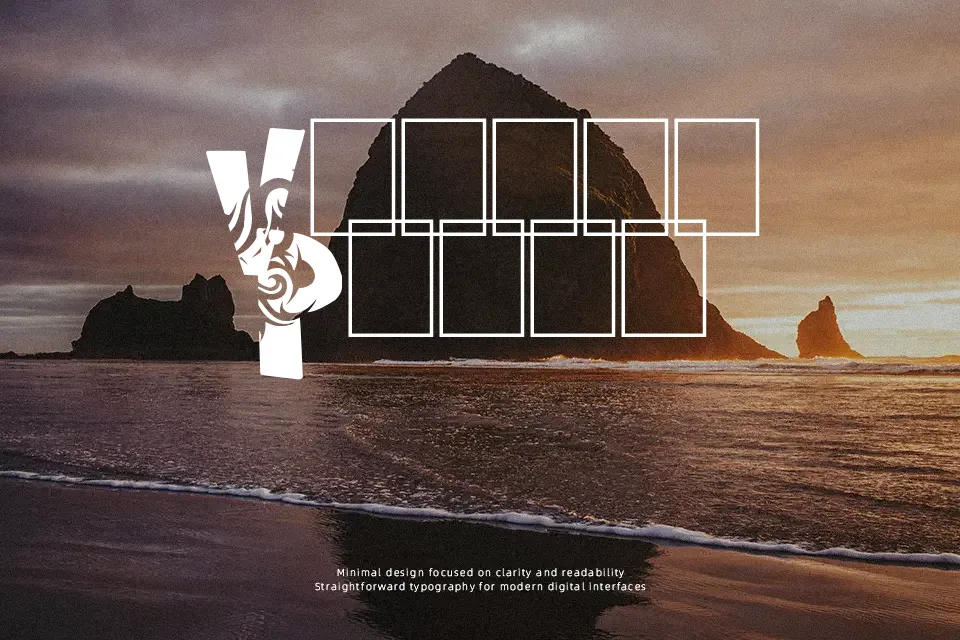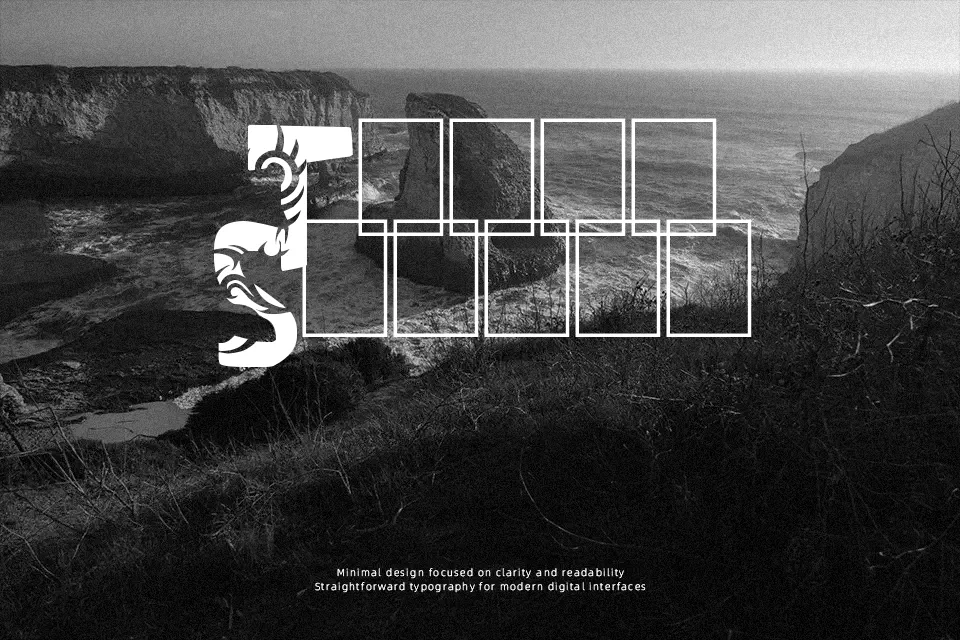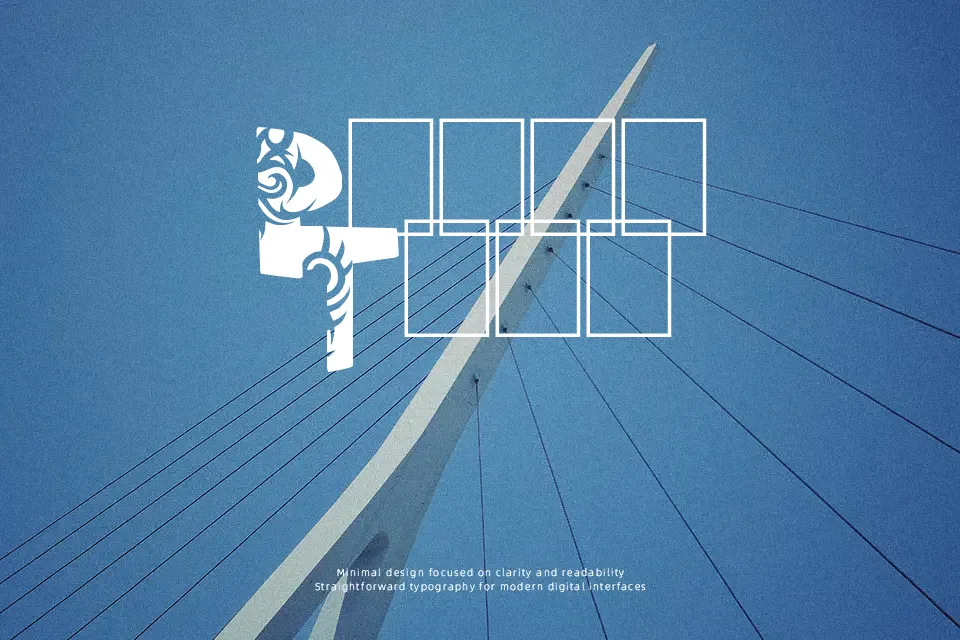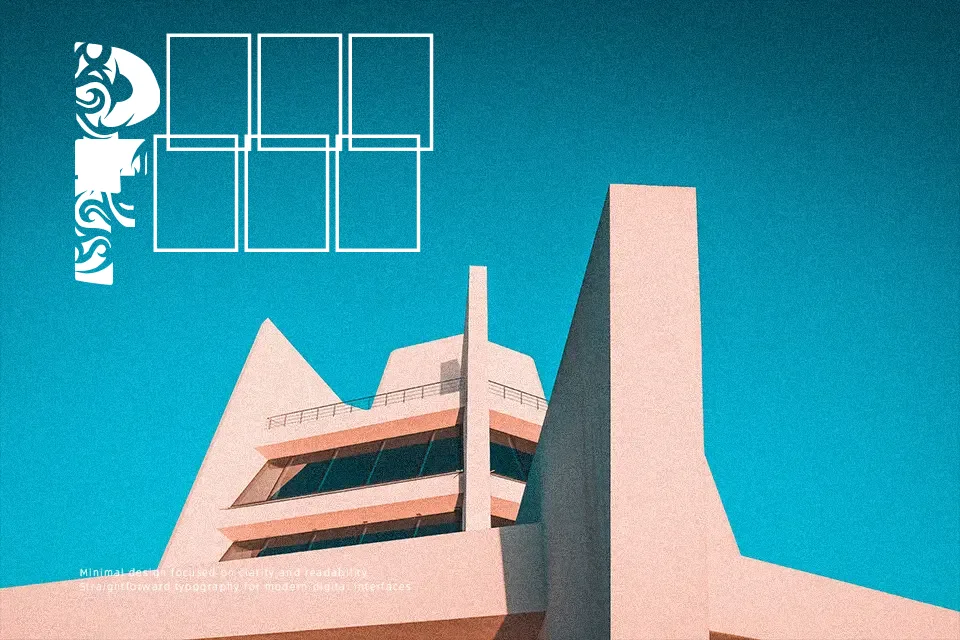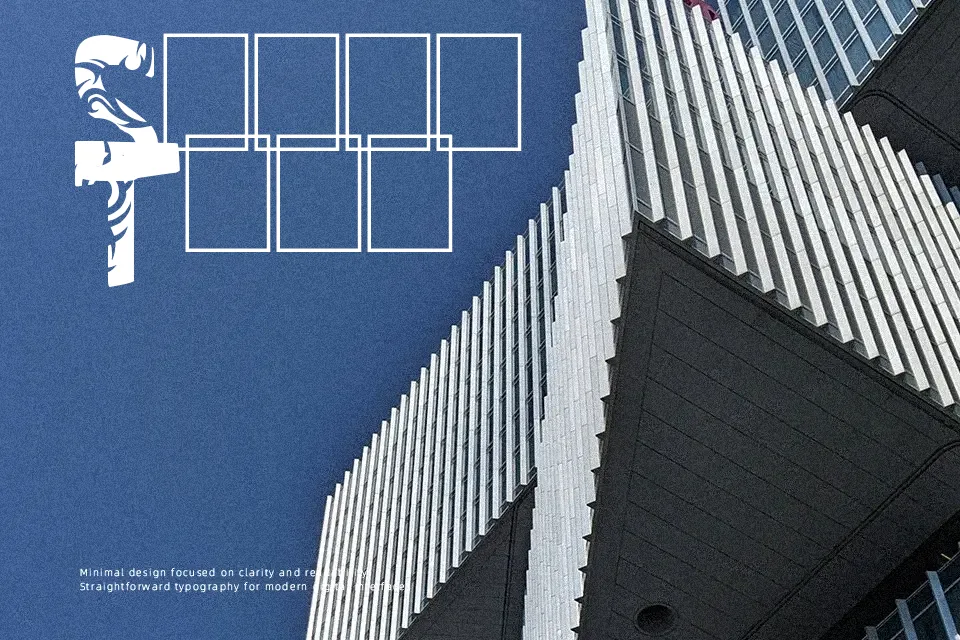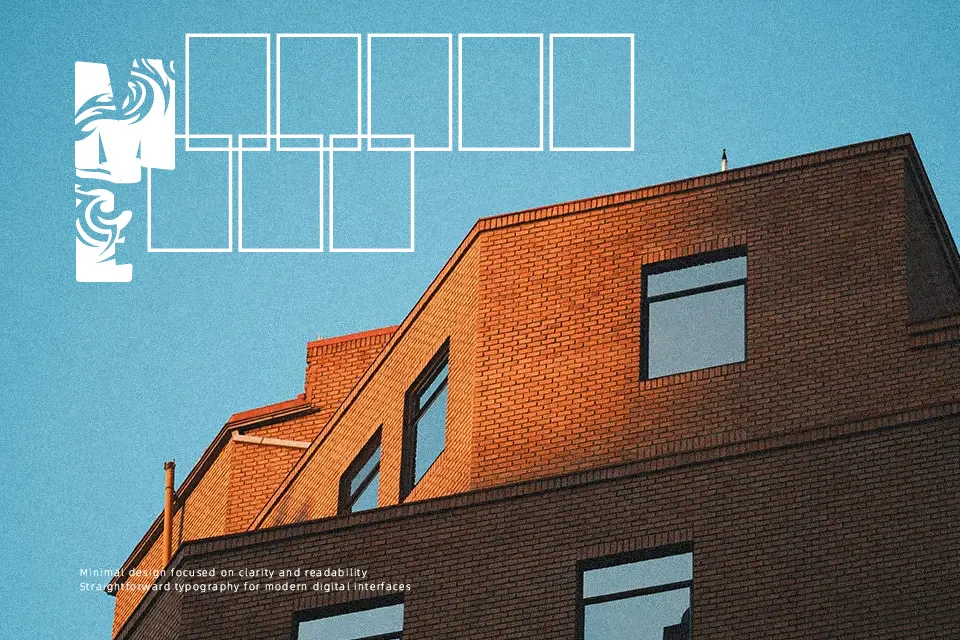
Tuamotu Font
Tuamotu Font features solid, heavyweight character silhouettes carved with distinct tribal motifs and high-contrast internal geometric cutouts. The letterforms exhibit uniform vertical proportions, sturdy upright stems, and relatively compact horizontal spacing that gives lines of text a cohesive, textured rhythm. While this ornamental construction ensures immediate visual prominence in large-scale headlines, merchandise branding, and themed event banners, the density of the internal patterning compromises letter recognition at reduced sizes. Small caption settings and dense body text cause the fine carvings to blur together uncomfortably. The typeface performs best when reserved exclusively for oversized display titles where the craftsmanship remains legible.
Best For: tiki bar signage, surf apparel graphics, festival posters, themed restaurant menus
Not Ideal For: long paragraph text, small interface labels, dense editorial layouts, technical documentation
Perfect for headline, logo, and packaging, with a artistic and decorative style.